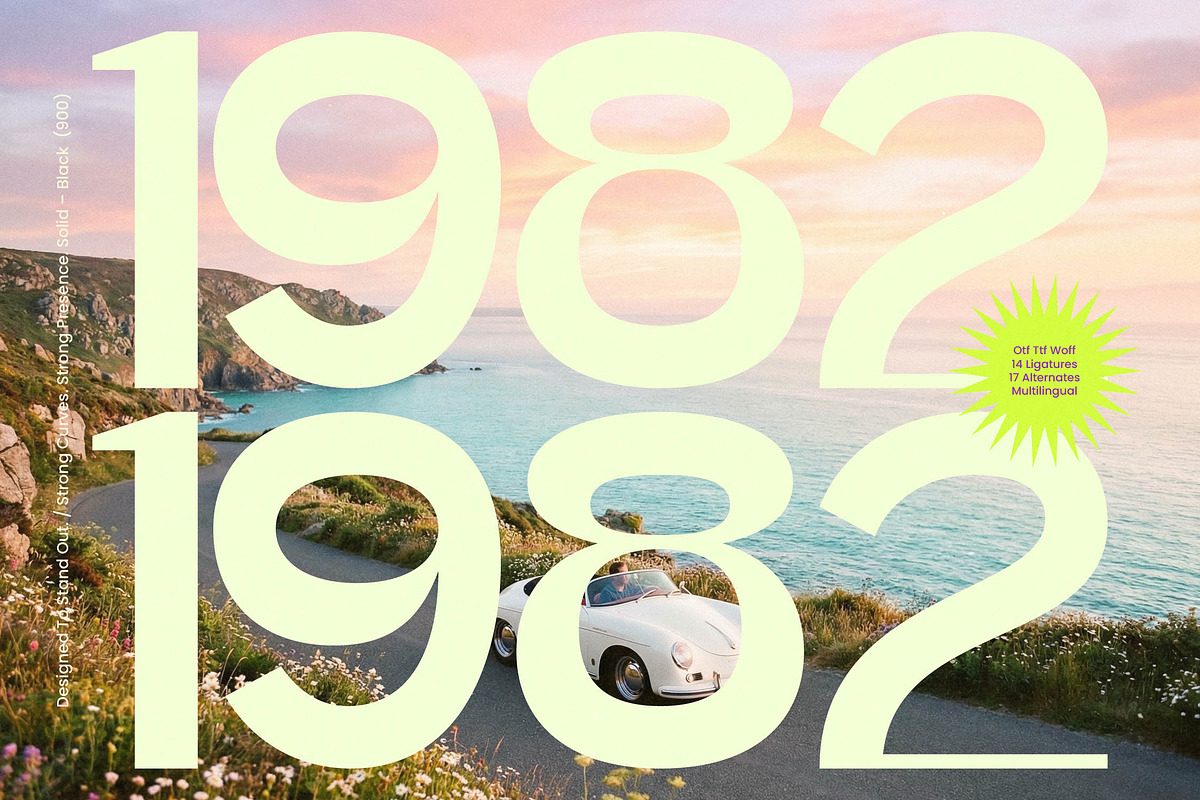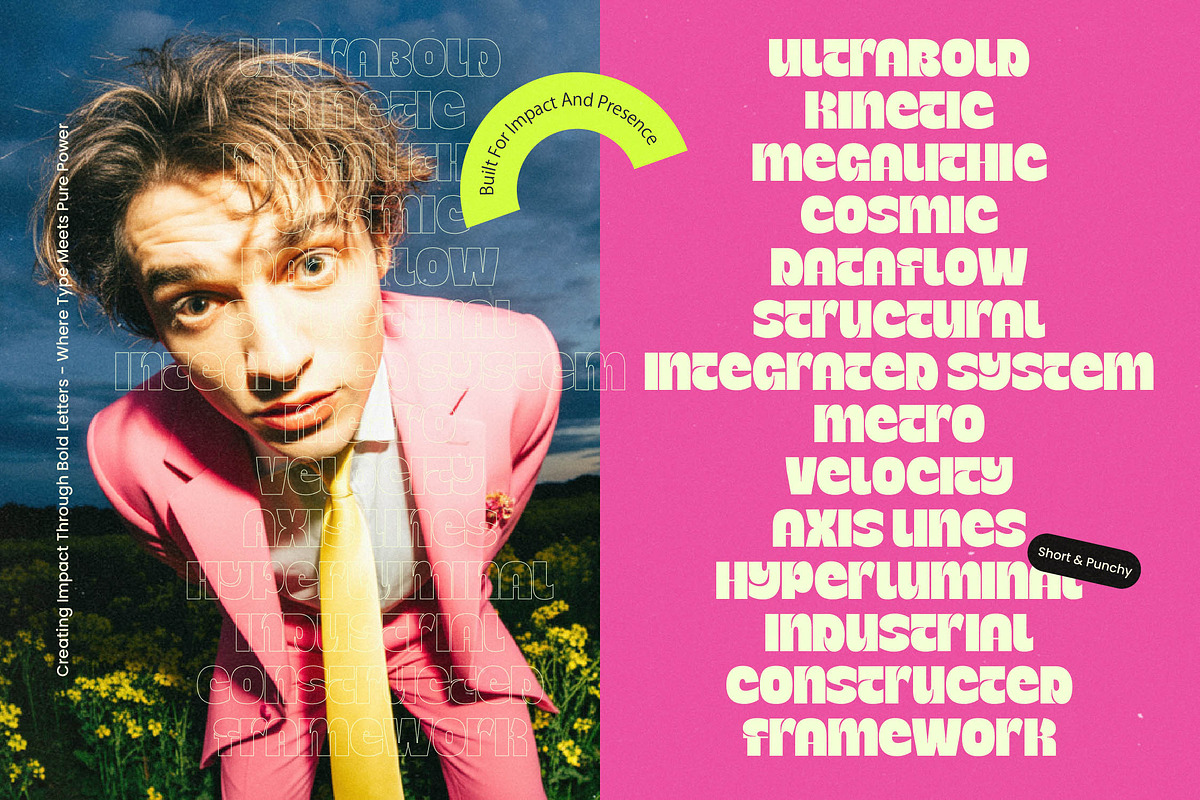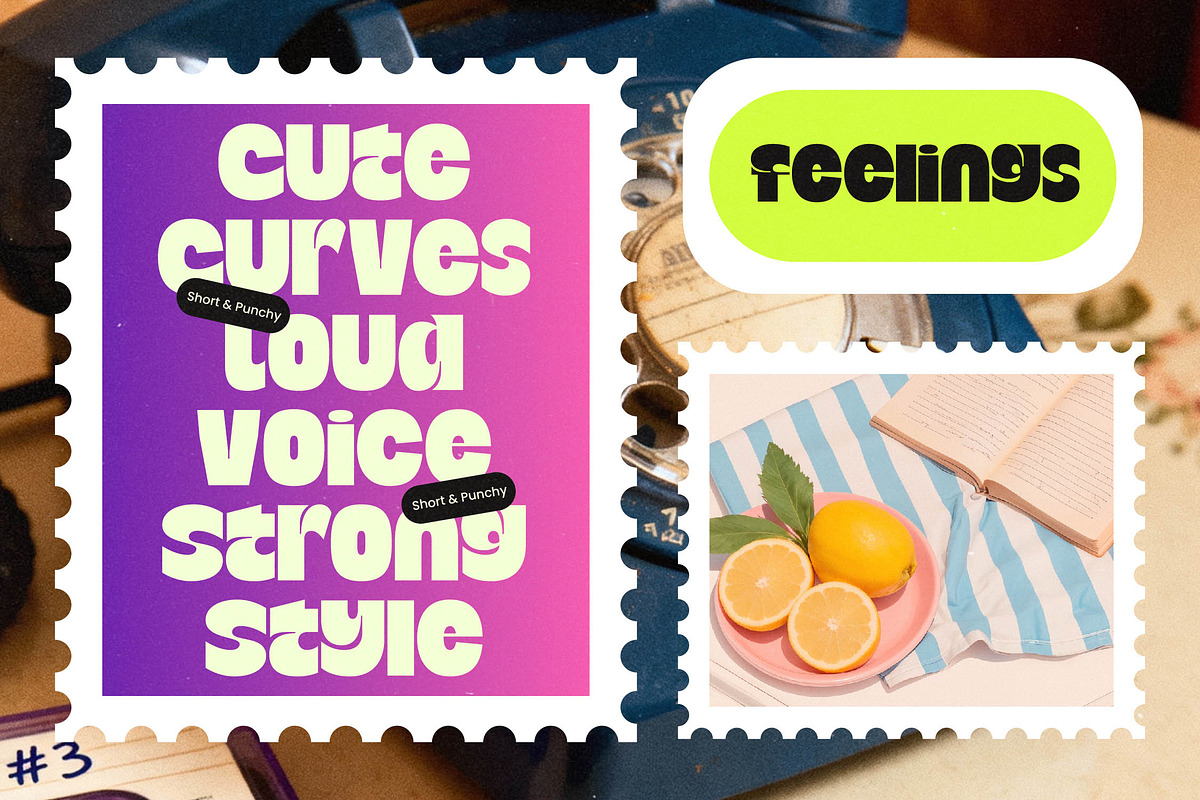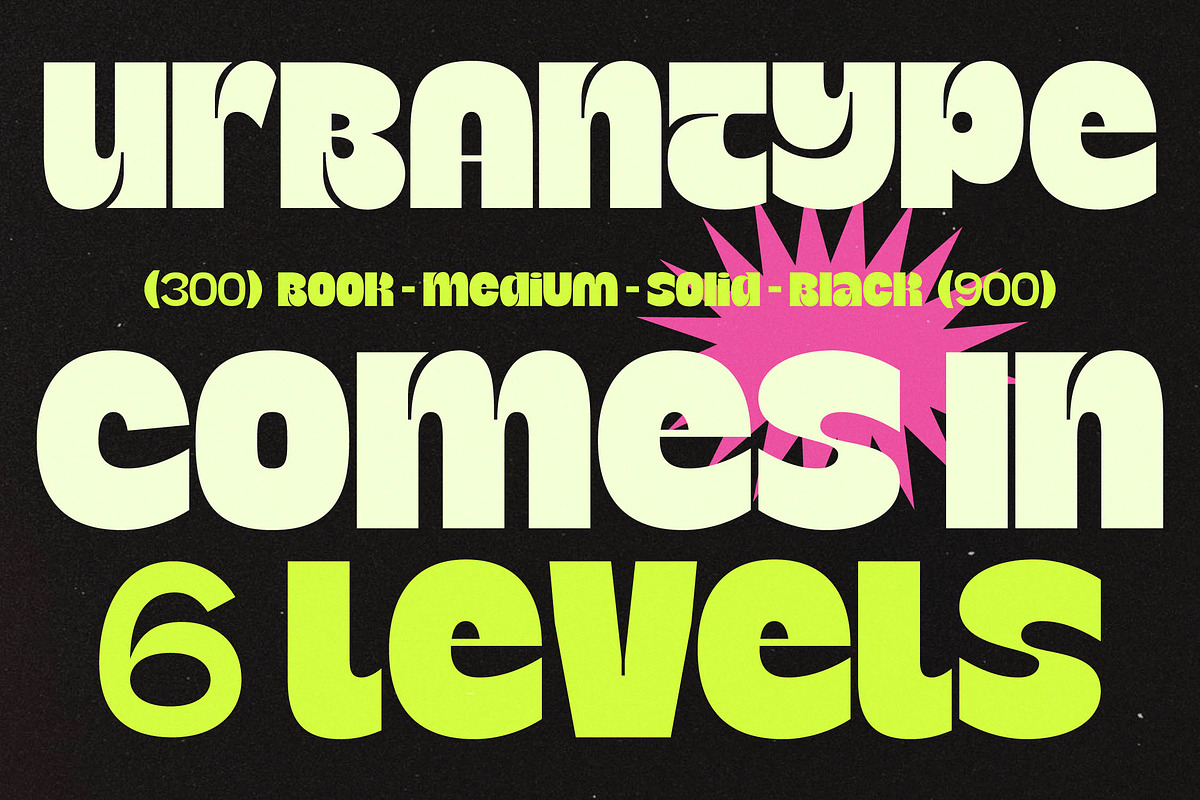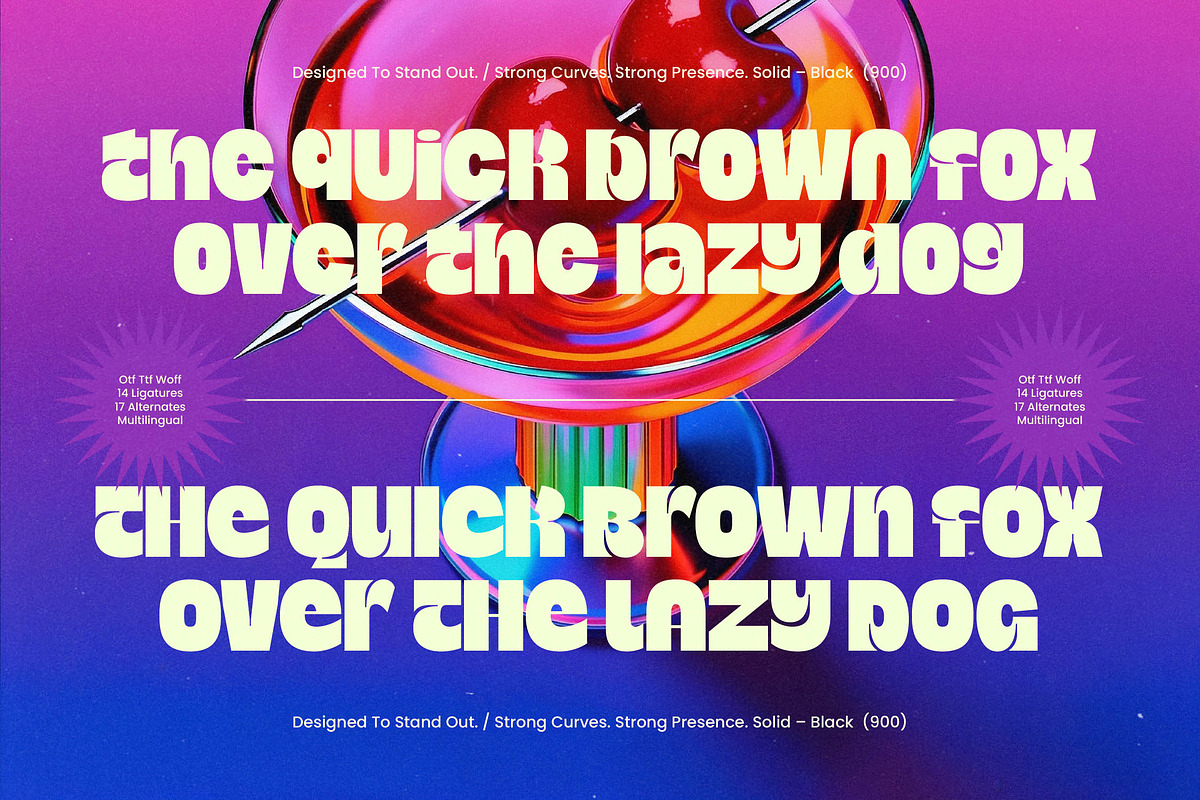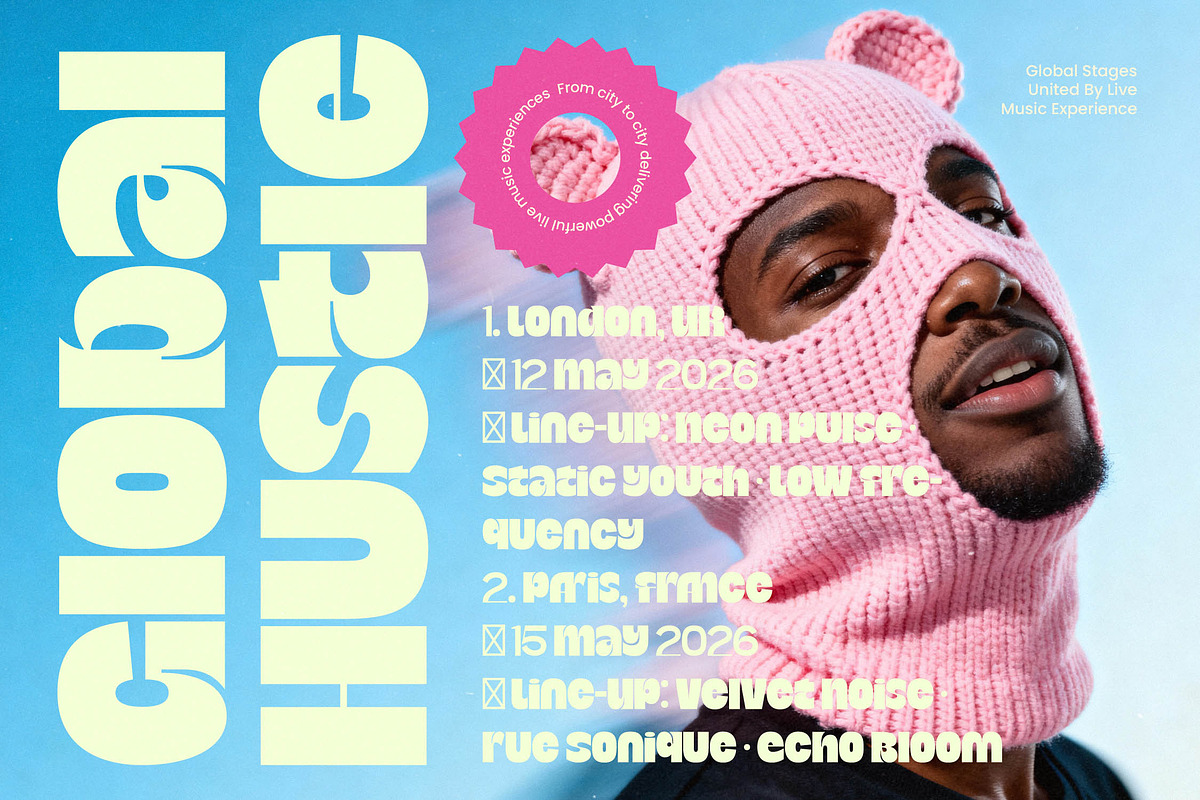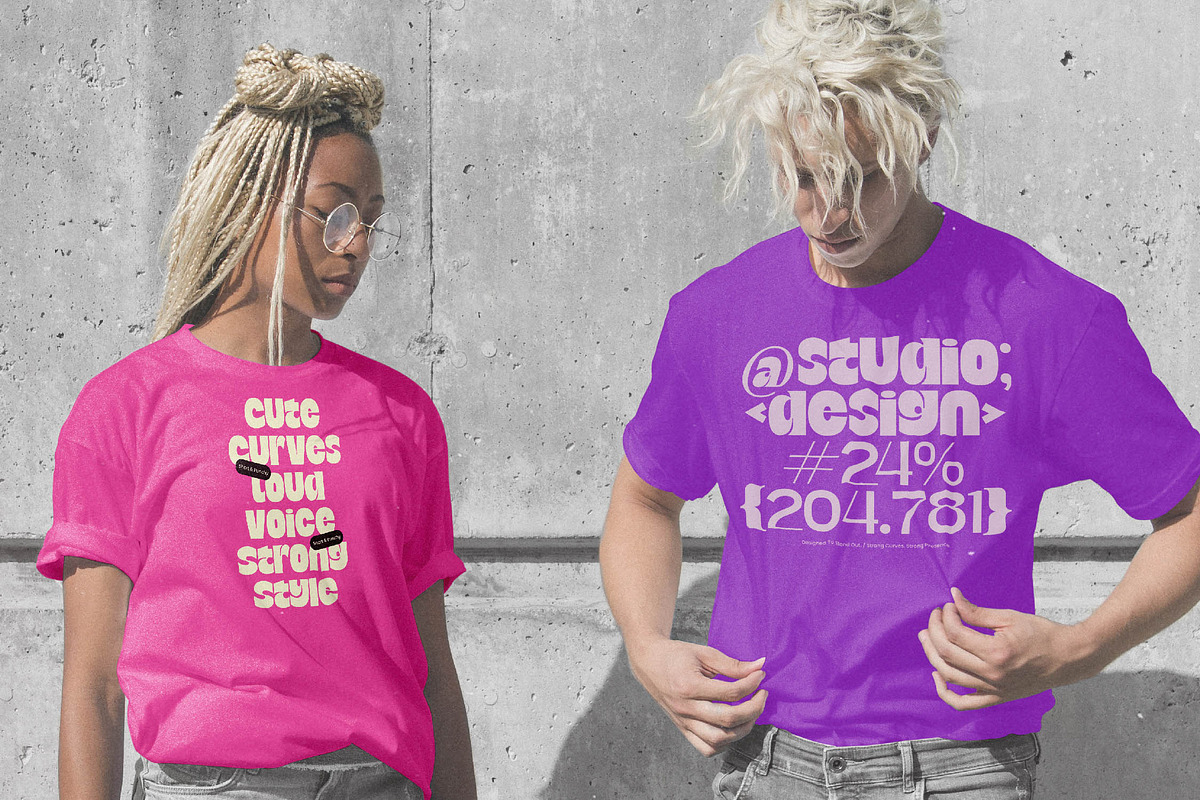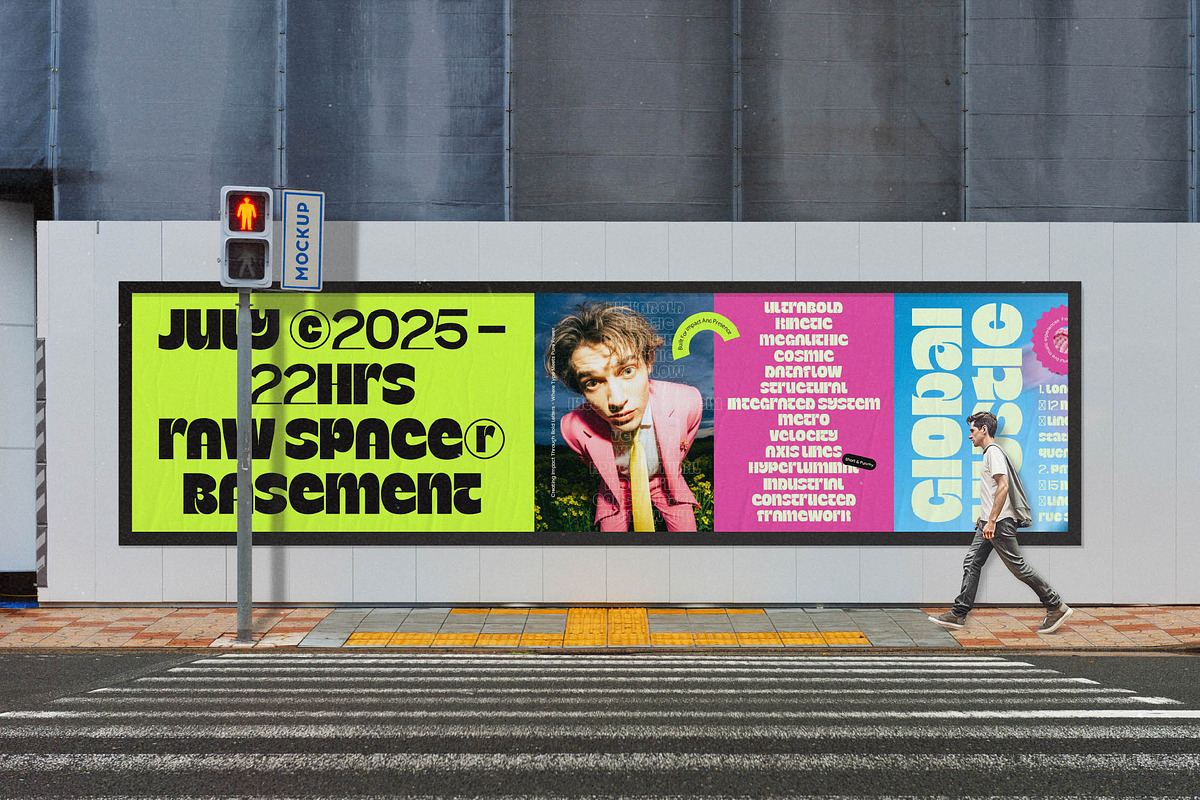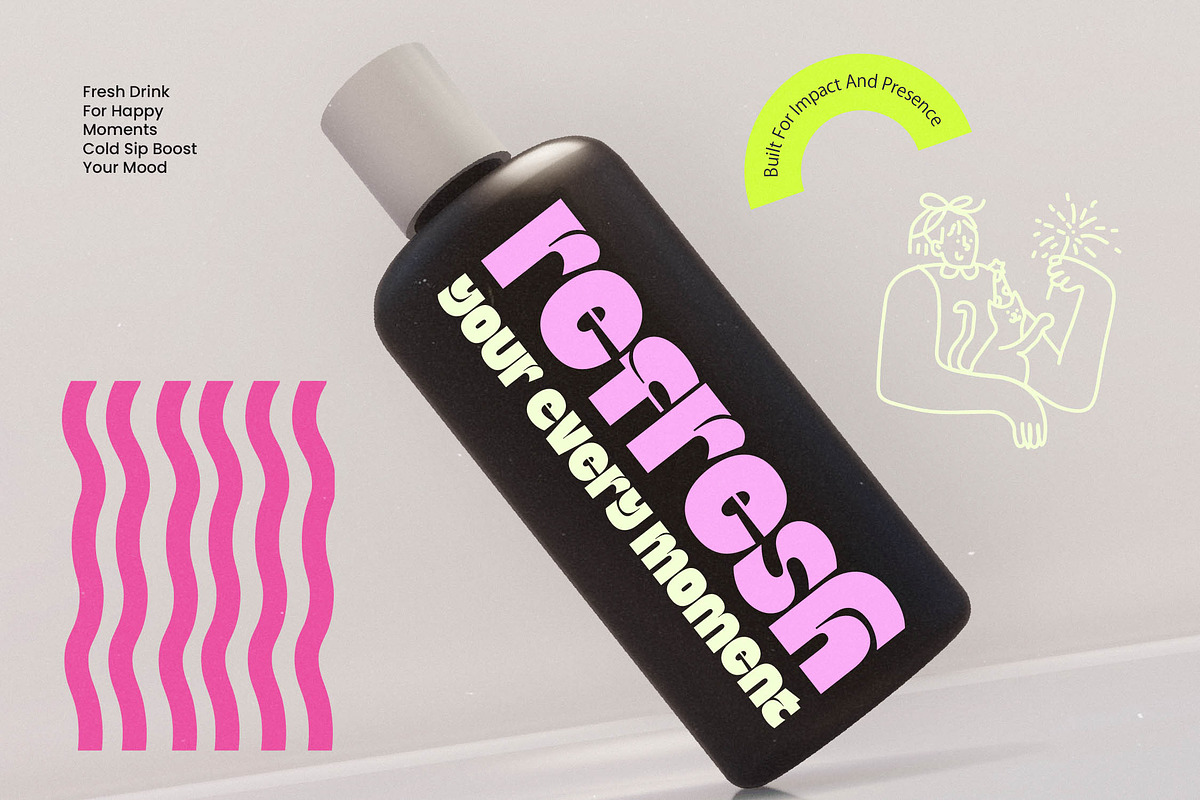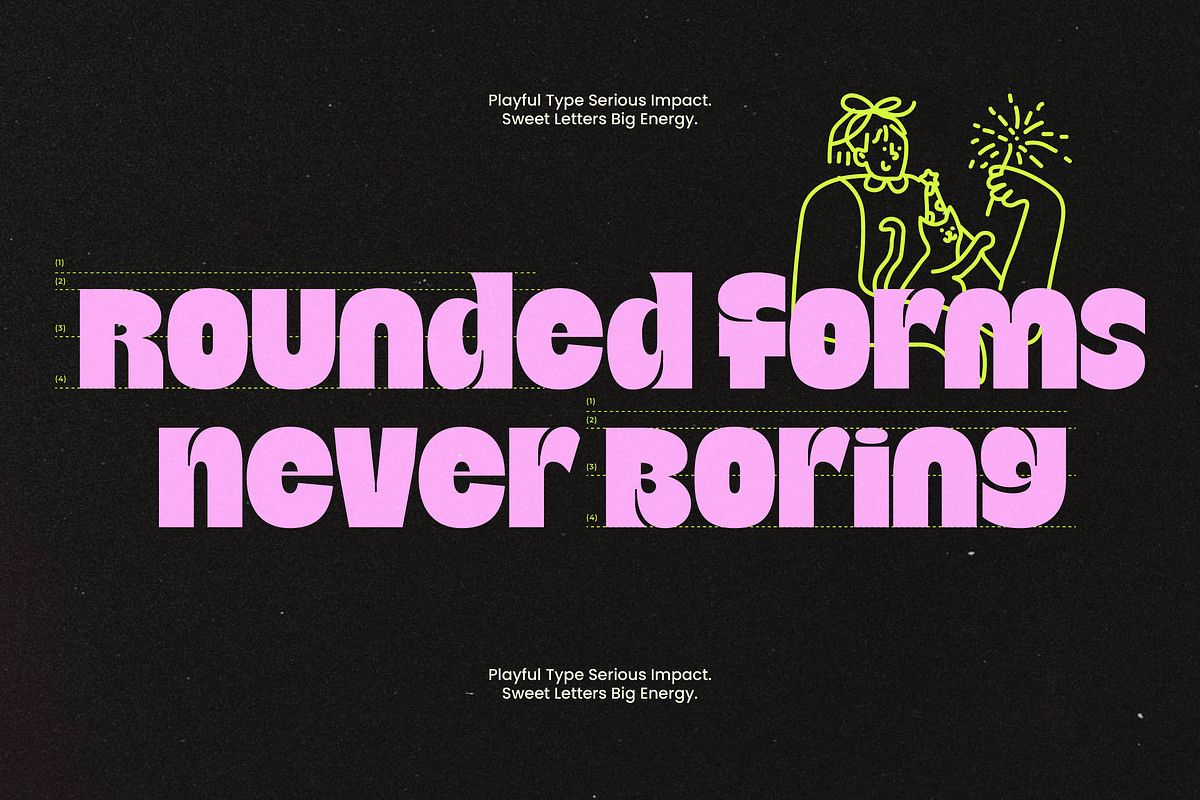
Bangkoq Bold Modern Display Font
Bangkoq captures the vibrant pulse of a neon-drenched metropolis, blending high-energy curves with a commanding presence that demands immediate attention. It is a visual celebration of boldness designed to transform any canvas into a masterpiece of contemporary expression.
Drawing inspiration from the fluid motion of molten glass and the nostalgic rhythm of 1980s nightlife, this typeface bridges the gap between retro flair and futuristic elegance. Its unique silhouettes reflect the organic flow of a cocktail in motion, offering a sensory experience through letterforms.
The personality of this font is defined by a modern serif display aesthetic that prioritizes a luxury typography feel for maximum branding impact. With its high-contrast serif details and liquid-like transitions, it serves as a premier editorial font for those seeking a sophisticated yet daring look.
Tapping into the current modern serif trend, this typeface is perfect for designers looking for character-driven typography that breaks away from traditional grids. It fits seamlessly within the world of editorial display fonts, providing a fresh alternative to standard bold weights by adding a rhythmic, wave-like movement to every word.
This versatile typeface excels in logo design and high-end branding, making it a go-to choice for fashion houses and packaging for premium products. Whether it is used for a high-profile wedding invitation or a daring editorial layout, its strong curves ensure your message stands out in a crowded market.
The technical versatility of this font is showcased through its extensive range of ligatures and alternates, allowing for endless creative customization. It also includes comprehensive multilingual support and international characters, ensuring your global projects maintain a consistent and powerful visual identity across borders.
Ligatures and Alternative Style Stylistic Set